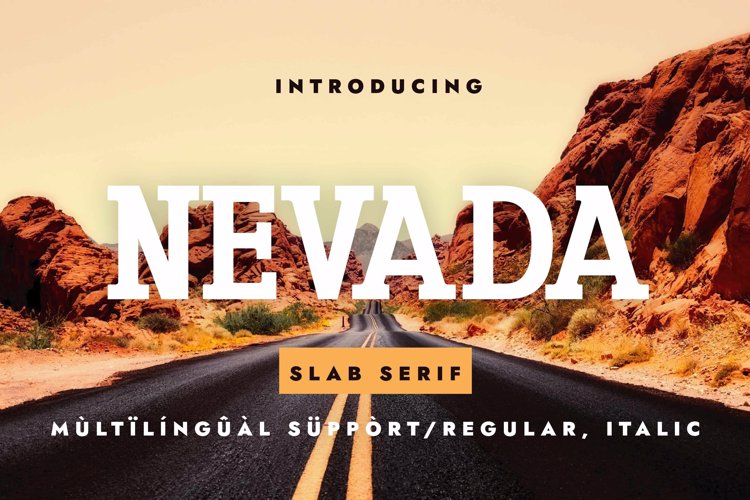
NEVADA Font
ITALIC Italic Style
🎨 Font Name: Nevada by Minimalist Art Studio
🎨 Font Description: Nevada is a bold slab serif with Western flair and multilingual support—ideal for rugged headlines, Americana themes, and vintage-inspired design.